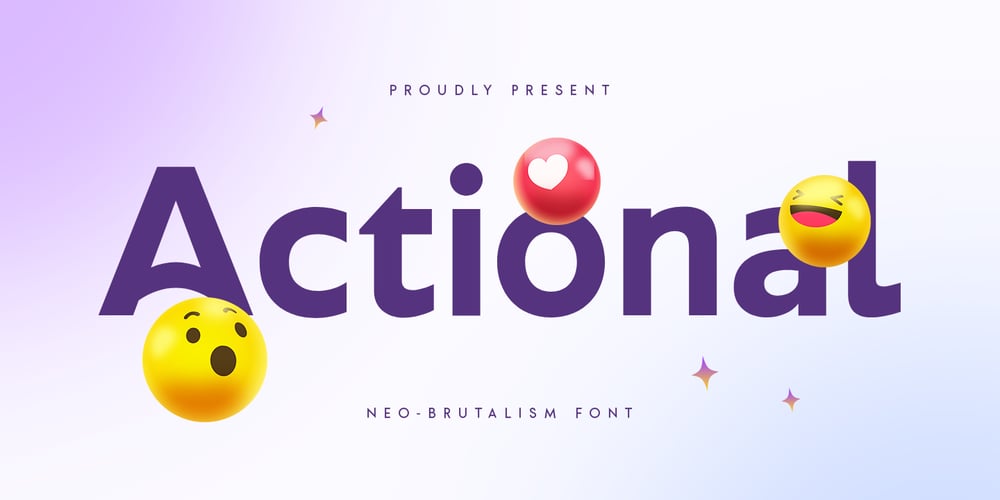
Actional
Actional font
Actional Font Family was designed by Zamroni Hamzah and published by Sensatype Studio. Actional contains 1 styles and family package options. Actional, Neo Brutalism Font is a modern font with minimalist and Corporate like a Cinematic style, font that you can combine to get any variations and unique shapes easily just in seconds with choose characters of them. It is a sans serif font with minimalist style that perfect for Social Media Headline, Thumbnail title, branding projects, logo, poster designs, social media posts, advertisements, product packaging, product designs, label, photography, watermark, invitation, stationery, and any projects, it makes with a high level of legibility.What’s Included: 4 Formats Unique Characters Character set A-Z Numerals & Punctuation Accented Characters (West Europe) Works on PC & Mac Recommended using Adobe Illustrator or Adobe Photoshop. Wish you enjoy our font. 🙂